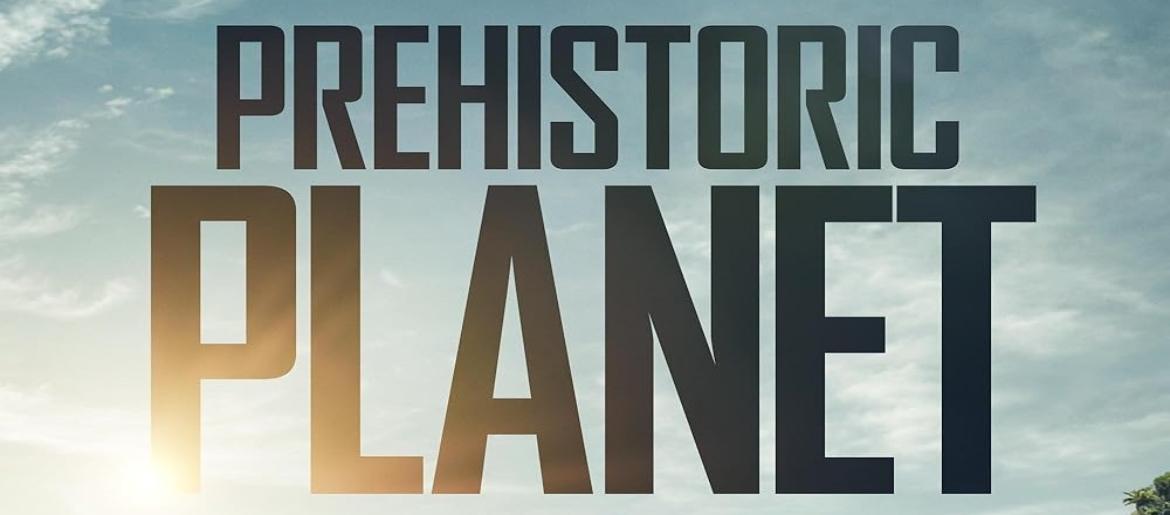
Prehistoric Planet Font
What Font Does Prehistoric Planet Use?
The Prehistoric Planet Font closely matches Agency FB Condensed Bold, a commercial typeface by Font Bureau known for its tall, narrow letterforms and modern, documentary-style clarity. Its structured, scientific look perfectly reflects the series’ sleek, educational visual identity. A free alternative font is also available, offering a similar condensed and clean appearance for creators who want to recreate the style without licensing the commercial typeface.
About Prehistoric Planet
Prehistoric Planet is a natural history documentary TV series that premiered in 2022 on Apple TV+. The series reimagines life on Earth 66 million years ago, transporting viewers to the late Cretaceous period with unprecedented realism powered by cutting-edge visual effects.
Narrated by Sir David Attenborough, the series was produced by BBC Studios Natural History Unit and Jon Favreau, combining scientific research with cinematic storytelling. Instead of portraying dinosaurs as monsters, the show presents them as complex animals with social behaviors, hunting strategies, migration patterns, and family dynamics.
Each episode explores different ecosystems — coasts, deserts, freshwater environments, ice worlds, and forests — showcasing species like Tyrannosaurus rex, Triceratops, Mosasaurus, Velociraptor-like dromaeosaurs, and many more. The series is praised for its scientific accuracy, breathtaking visual realism, and emotionally rich portrayal of prehistoric life.